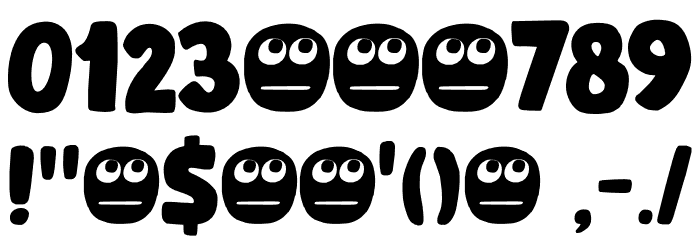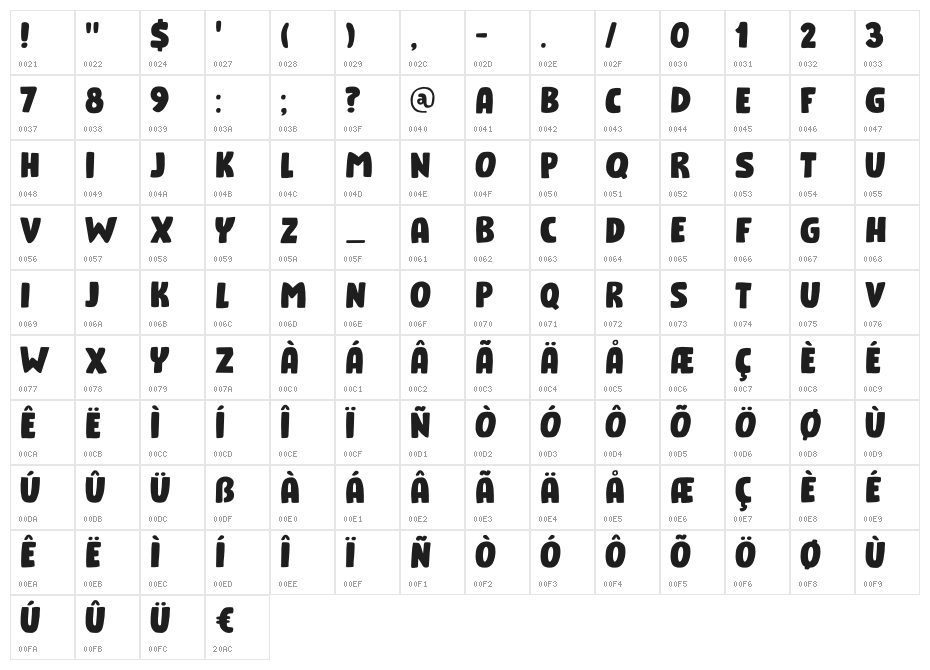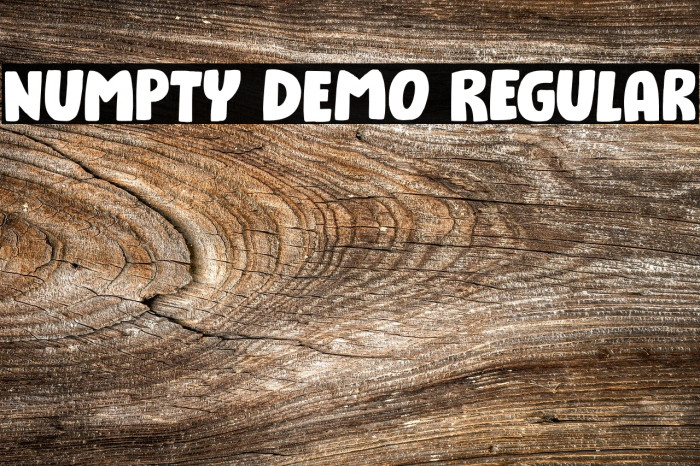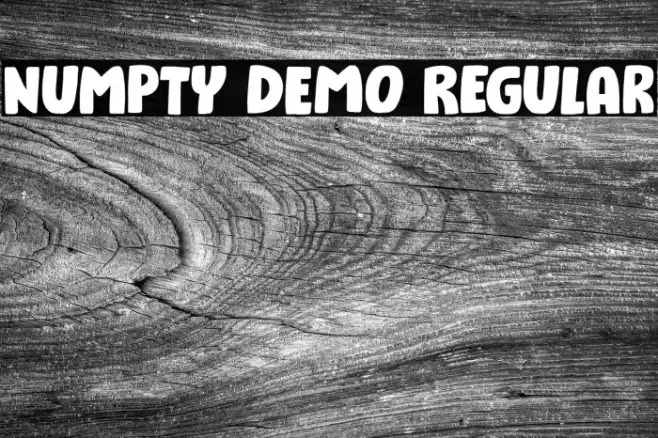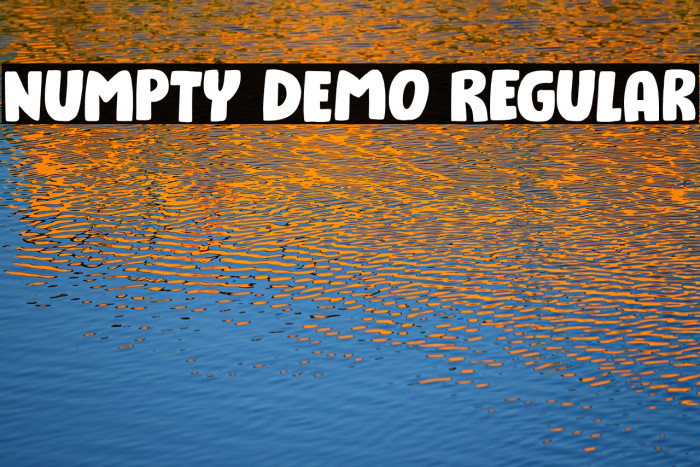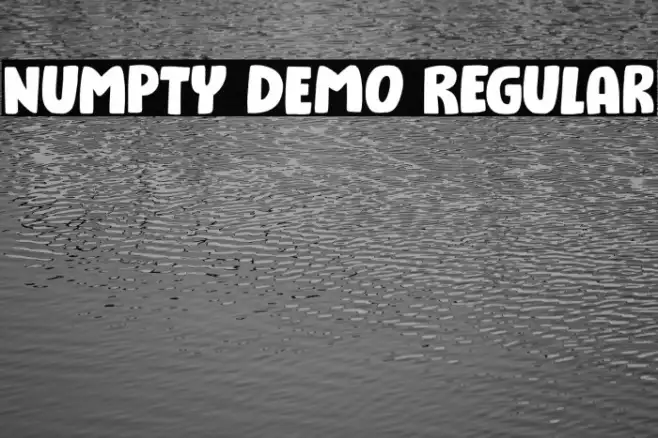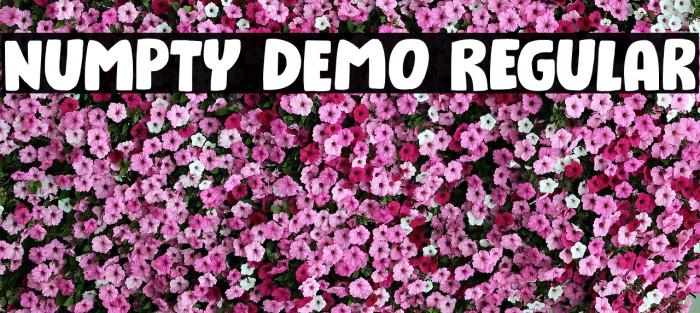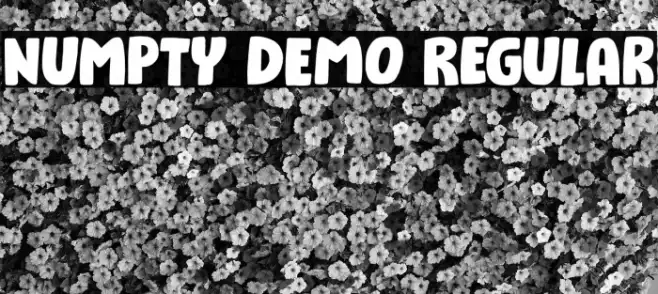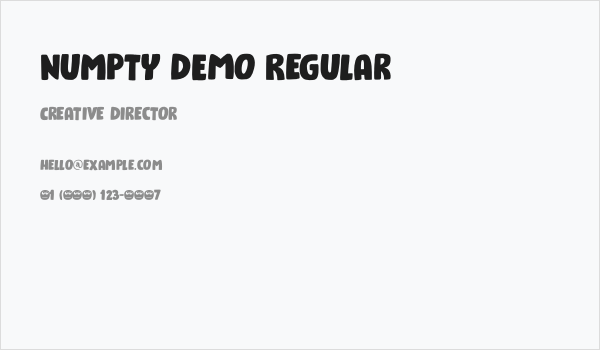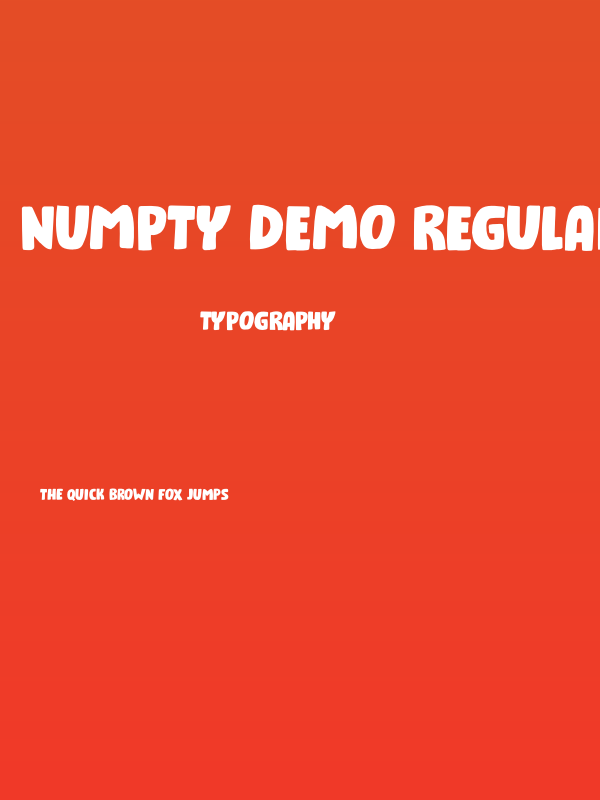
Numpty DEMO Regular Font
Numpty DEMO Regular Description
This playful and bold font features thick, rounded characters that convey a sense of fun and whimsy. Each letter and number is crafted with a uniform thickness, creating a cohesive and visually striking appearance. The font's unique style is characterized by its exaggerated curves and slightly irregular shapes, giving it a hand-drawn feel. The special characters, including symbols like the dollar sign and exclamation mark, maintain the same bold and rounded aesthetic, ensuring consistency throughout. This font is ideal for projects that require a touch of humor and creativity, making it perfect for children's books, playful branding, or eye-catching headlines.
| Use Case | Headlines, Logos, Children's Books |
| Proposed Projects | Ideal for children's books, playful branding, and eye-catching headlines. |